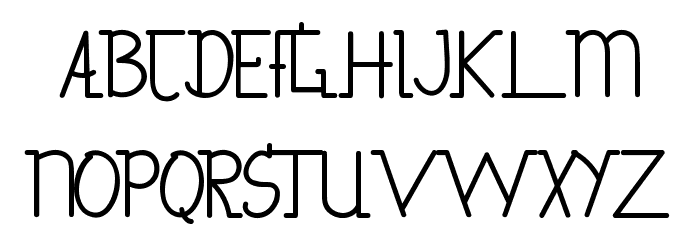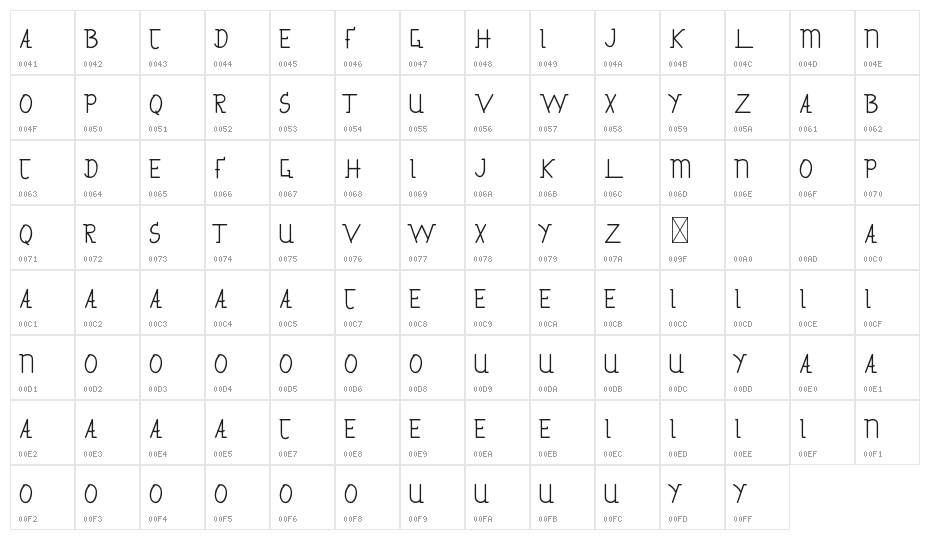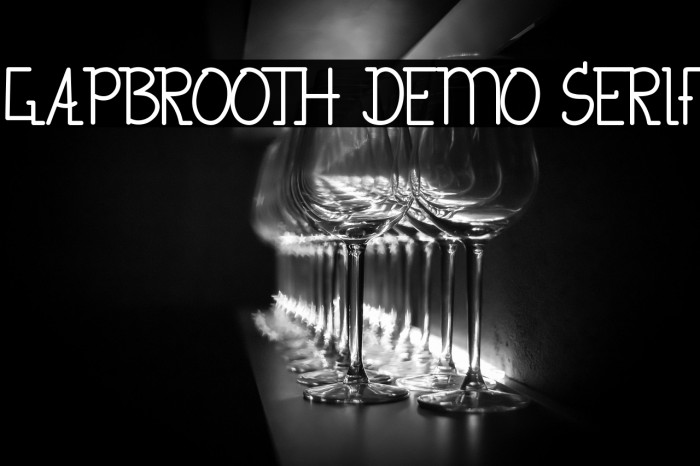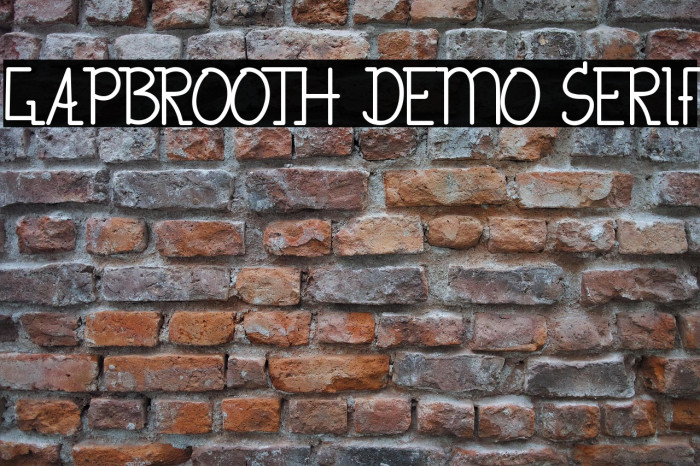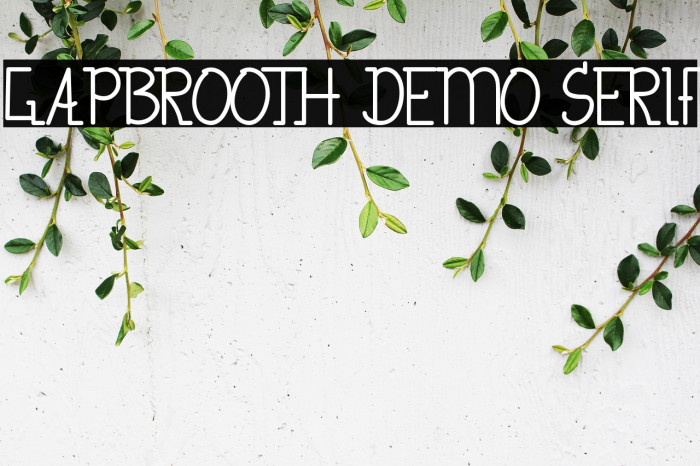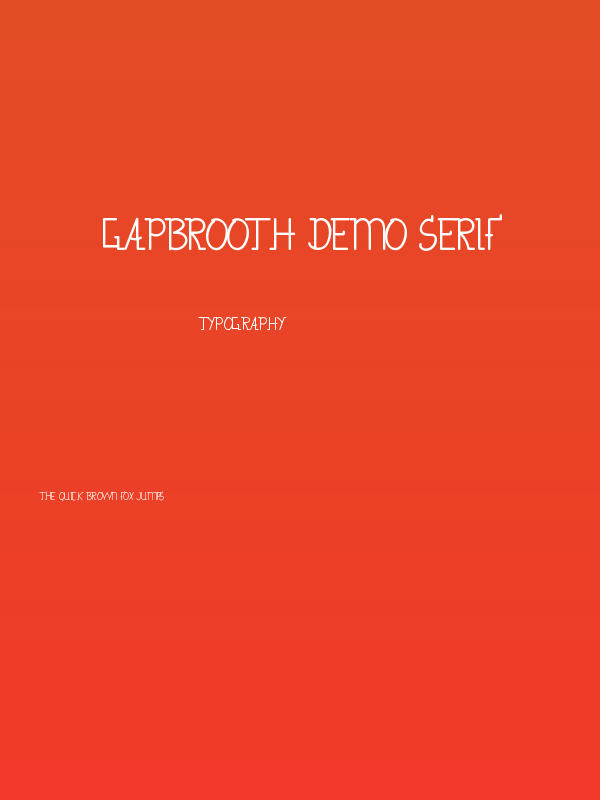
Gapbrooth Demo Serif Font
Gapbrooth Demo Serif Description
This font features a unique and artistic design with a blend of geometric and organic elements. The uppercase letters are characterized by their elongated and narrow forms, with distinct curves and angles that give them a modern and stylish appearance. The lowercase letters maintain a consistent style, complementing the uppercase with their own set of curves and lines. The numbers are designed to match the overall aesthetic, providing a cohesive look across all characters. Special characters are included, each crafted to fit seamlessly with the rest of the font. This font's distinct style makes it suitable for creative and artistic projects, where a touch of elegance and modernity is desired.
| Proposed Projects | Ideal for branding, posters, and artistic projects requiring a modern touch. |